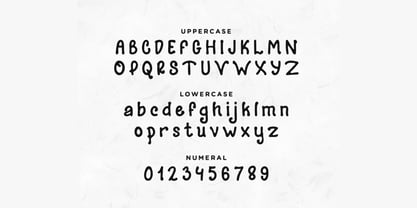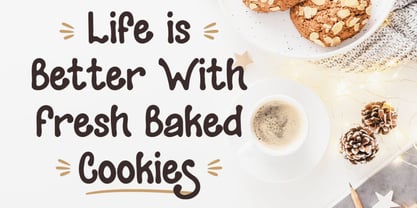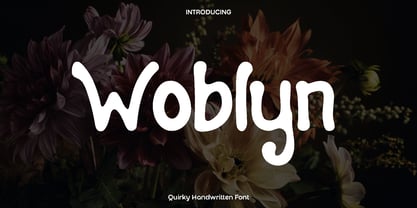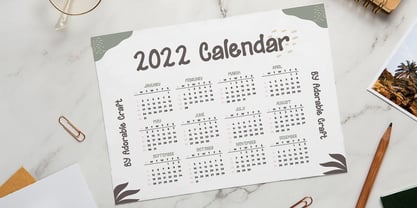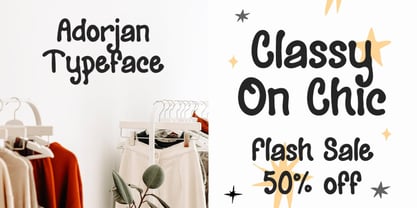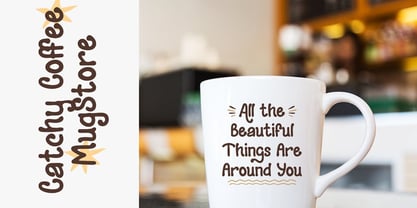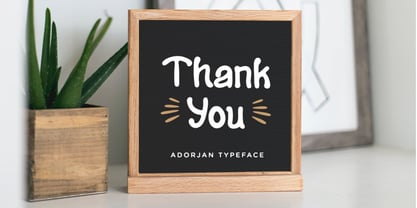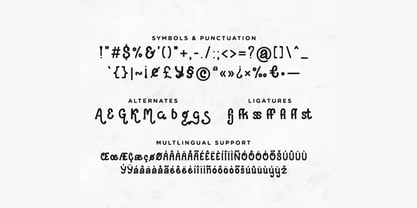
Woblyn
by Only Fonts
The Woblyn Font Family was designed by Olivia Love and published by Only Fonts. Woblyn contains 1 styles. More about this family
Woblyn is a delightful, playful handwritten font with a sweet dainty charm that adds instant personality to any creative work. Rounded letterforms and gentle curves create an inviting, approachable feel while maintaining strong legibility, making it perfect for designs that need warmth without losing clarity. Woblyn was crafted for projects seeking genuine human touch with contemporary flair: greeting cards that feel personal, coffee shop menus with character, album covers with intimacy, and quotes that speak straight to the heart. Use it when your design calls for authentic handwriting charm combined with modern polish and joy. Where it shines: - Greeting cards and stationery: birth announcements, thank yous, wedding invitations, and personal correspondence where handwritten authenticity elevates the message. - Café branding and menus: coffee shop signage, pastry labels, and menu boards where dainty charm conveys welcoming craftsmanship. - Creative content: quote graphics, social media posts, blog headers, and digital designs where a personal touch stands out from standard typography. - Packaging and labels: artisanal product packaging, jam labels, baked goods wrapping, and handmade goods branding that celebrate authenticity. - Album art and music projects: cover designs, lyric sheets, and liner notes where emotional warmth enhances the listening experience. Standout features: - Uppercase and lowercase with naturally rounded edges that evoke real handwritten strokes without sacrificing polish or readability. - Symbols and punctuation that complement the dainty style, creating cohesive, charming typographic compositions. - Numerals designed to flow harmoniously with the letter
Designers: Olivia Love
Foundry: Only Fonts